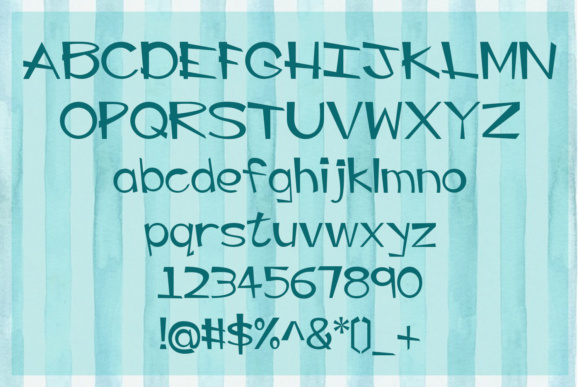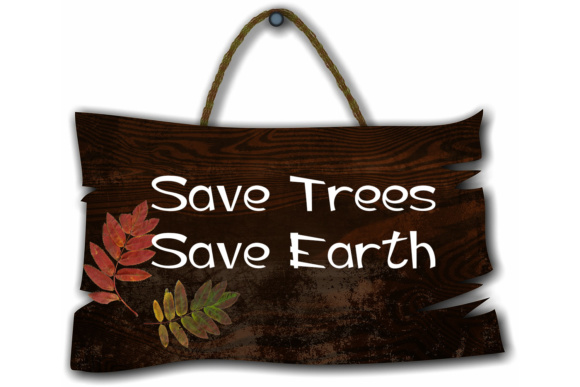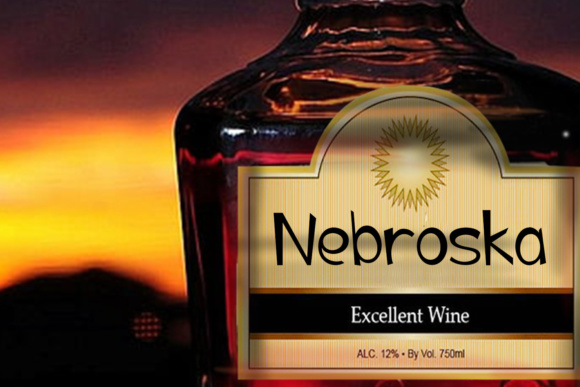
Unleash Your Creativity with the Big Guy Font
You’ve spent hours pouring over designs, trying to find the perfect combination of style and personality. But sometimes, all it takes is one font to bring your entire project together. That’s exactly what happened for graphic designer Emma, who stumbled upon the Big Guy Font while working on a new campaign for a trendy boutique.
The Big Guy Font, with its funky display style and bouncy appeal, instantly added a clean yet casual feel to Emma’s designs. As she continued to experiment with the font, she discovered its versatility and potential for use in a wide range of creative works. From posters to social media graphics, the Big Guy Font proved to be a valuable addition to her design toolkit.
Big Guy Font Key Features
- Unique Characteristics: Big Guy Font features a bold, playful, and energetic design, making it ideal for use in titles, headings, and other display text.
Big Guy Font Review
Big Guy Font is a bold, playful font that catches the eye. I think the designers did a great job with this font, making it perfect for use in children’s books, advertising, and other applications where a fun, energetic vibe is needed. ✨ The font is also highly customizable, allowing users to adjust the weight, width, and other parameters to suit their needs. ✨ The ligatures and swashes add a touch of elegance and sophistication, making it a great choice for high-end projects. ✨
However, there are some limitations to the font. ⚠️ The font does not include a complete character set, which may be a problem for users who need to use it for languages other than English. ⚠️ Additionally, the font may not be suitable for use in small text sizes, as the bold lines can become difficult to read. ⚠️
- Pros:
- Bold, playful design
- Ligatures and swashes add elegance and sophistication
- Cons:
- Incomplete character set
- May not be suitable for use in small text sizes
Overall, I think Big Guy Font is a great choice for designers looking for a bold, playful font. While it may have some limitations, the font’s customization options and elegant ligatures make it a valuable addition to any design toolkit. With a little creativity, I think Big Guy Font can help designers create some truly eye-catching projects.
Tips for Getting the Most Out of Big Guy Font
Big Guy Font is ideal for headings and titles. Use it sparingly to add a touch of personality to your design. Experiment with different font sizes and colors to create visual interest.
Big Guy Font is commonly used in:
– Headings and titles
– Advertising and marketing materials
Alternatives to Big Guy Font
Big Guy Font is a bold, sans-serif font often used for headings and titles. However, it may not be the best choice for every project. Here are a few alternatives:
Arial Black is a sans-serif font with a similar bold feel to Big Guy Font. It’s a good choice for headings and titles, especially in formal or professional contexts. However, it may not be as unique or attention-grabbing as Big Guy Font.
Comparison: Arial Black is more straightforward and less stylized than Big Guy Font, but still conveys a sense of importance and authority.
Impact is a sans-serif font with a bold, condensed feel. It’s often used for titles and headings in magazines, newspapers, and other publications. It’s a good choice for projects that require a sense of energy and dynamism.